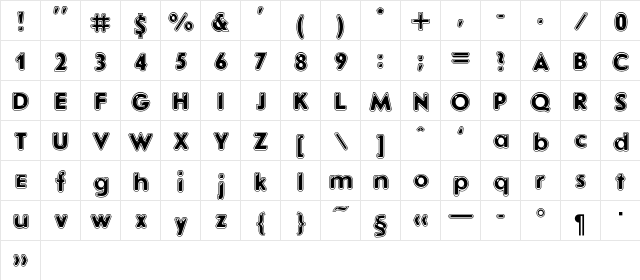
EbonitC Regular Font Preview
EbonitC Regular
Design Context for EbonitC Typeface
EbonitC offers clean, dependable letterforms without strong stylistic allegiance, making it a practical choice for designers who need flexibility.